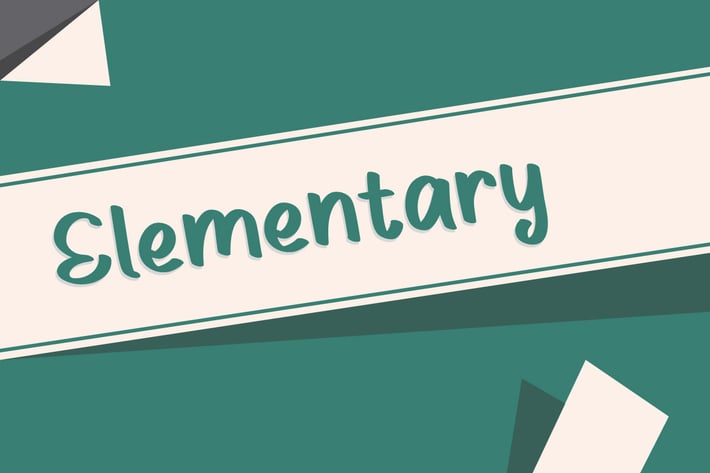
Elementary - Display Handwritten Font
Hello! Elementary is a simple hand written font.
Elementary can be used in any works such as flyer, book title, advertisement, social media content, logo and many more.